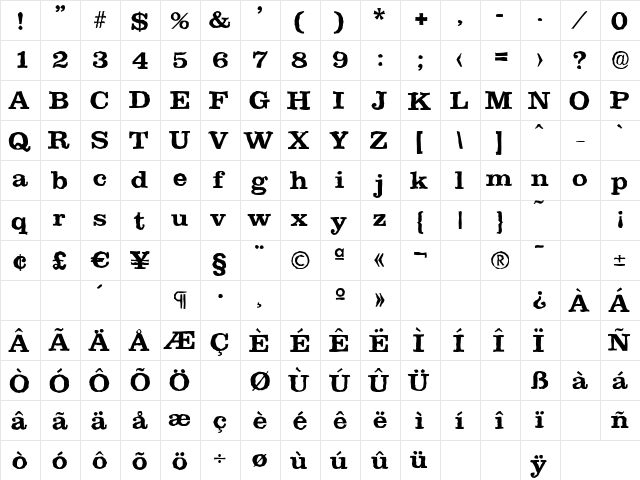
ClareAntique Bold Font Preview
ClareAntique Bold
Design Context for ClareAntique Typeface
ClareAntique wears its vintage influences proudly, with letterforms that recall mid-century signage, classic packaging, and nostalgia-driven design. Its bold stroke weight gives it real presence on the page.
Font Pairing: Combine ClareAntique with a simple slab or neutral sans — period-accurate companions reinforce the vintage feel without competing for attention.
Pro Tip: Lean into ClareAntique's period character by pairing it with aged paper textures, muted colour palettes, and vintage illustration styles.